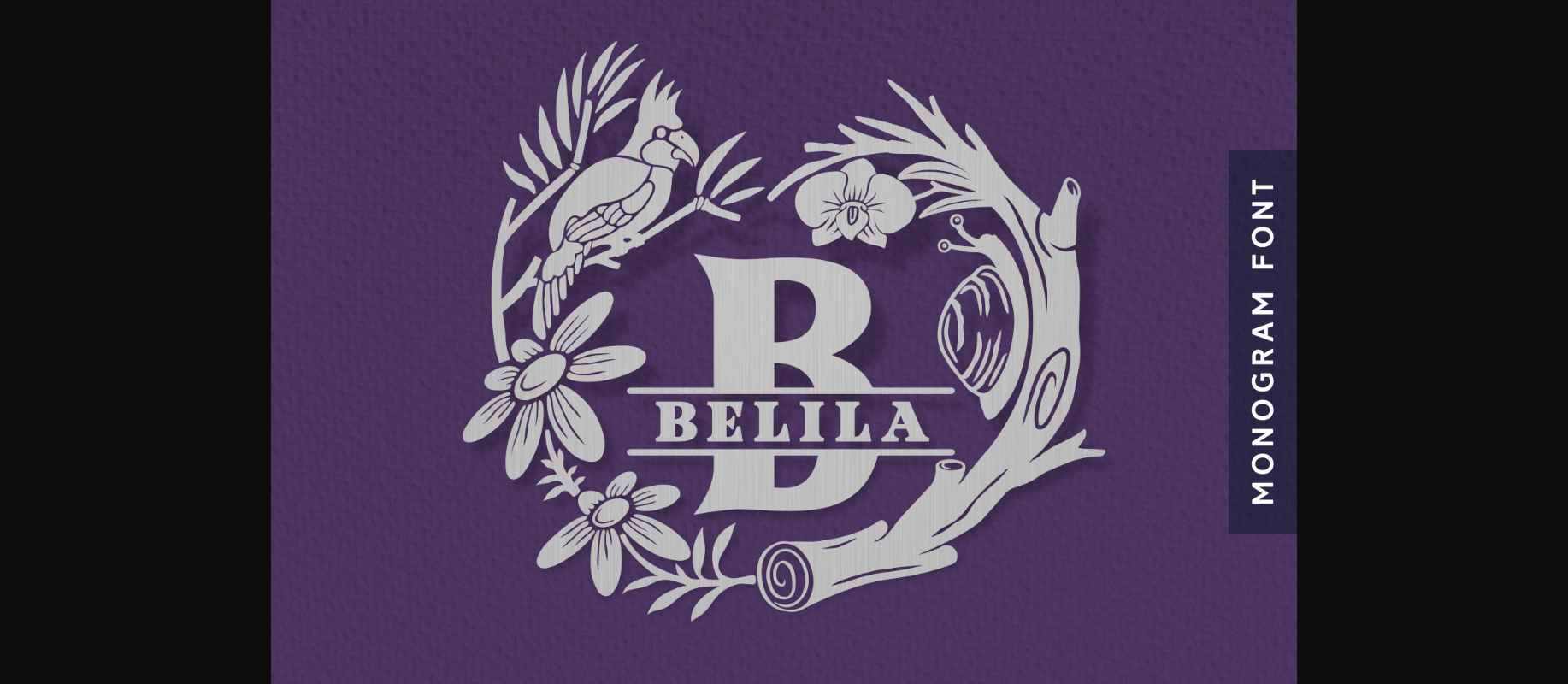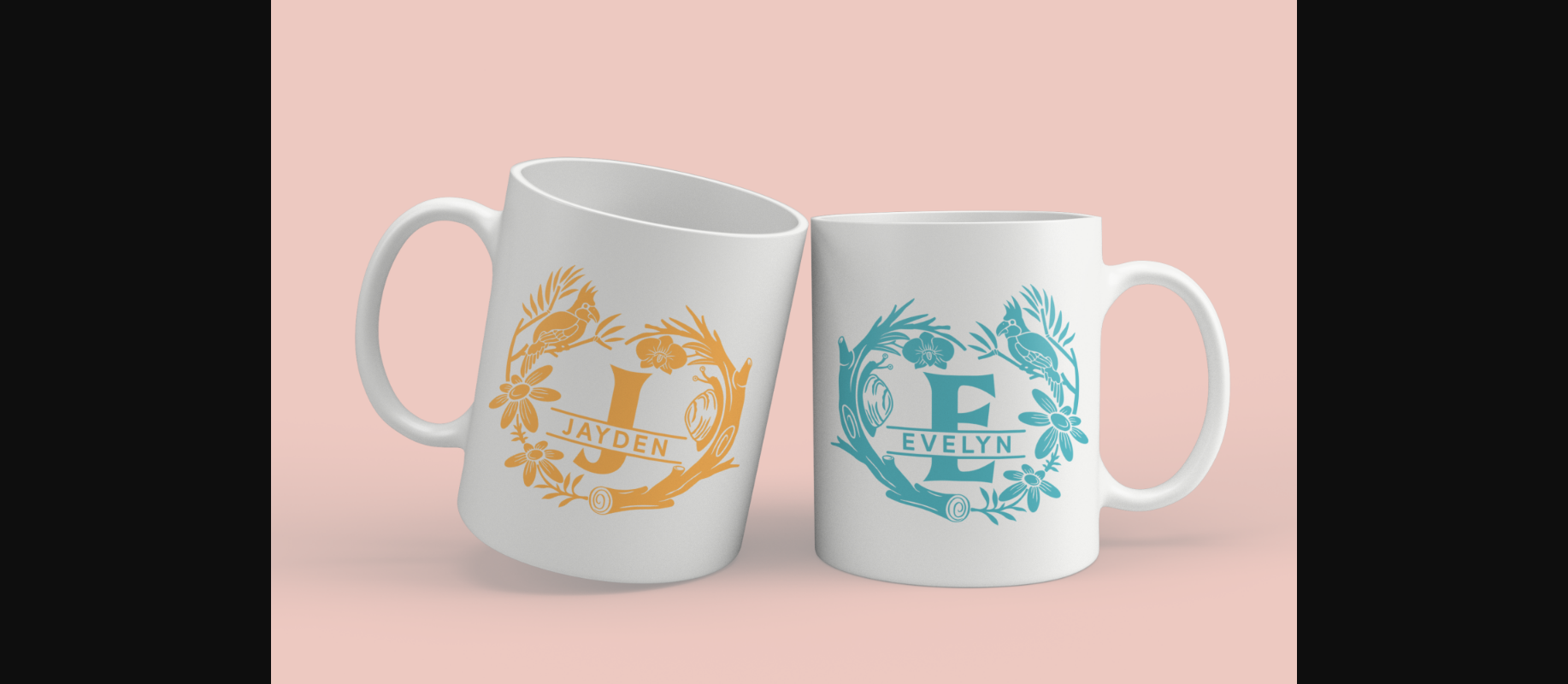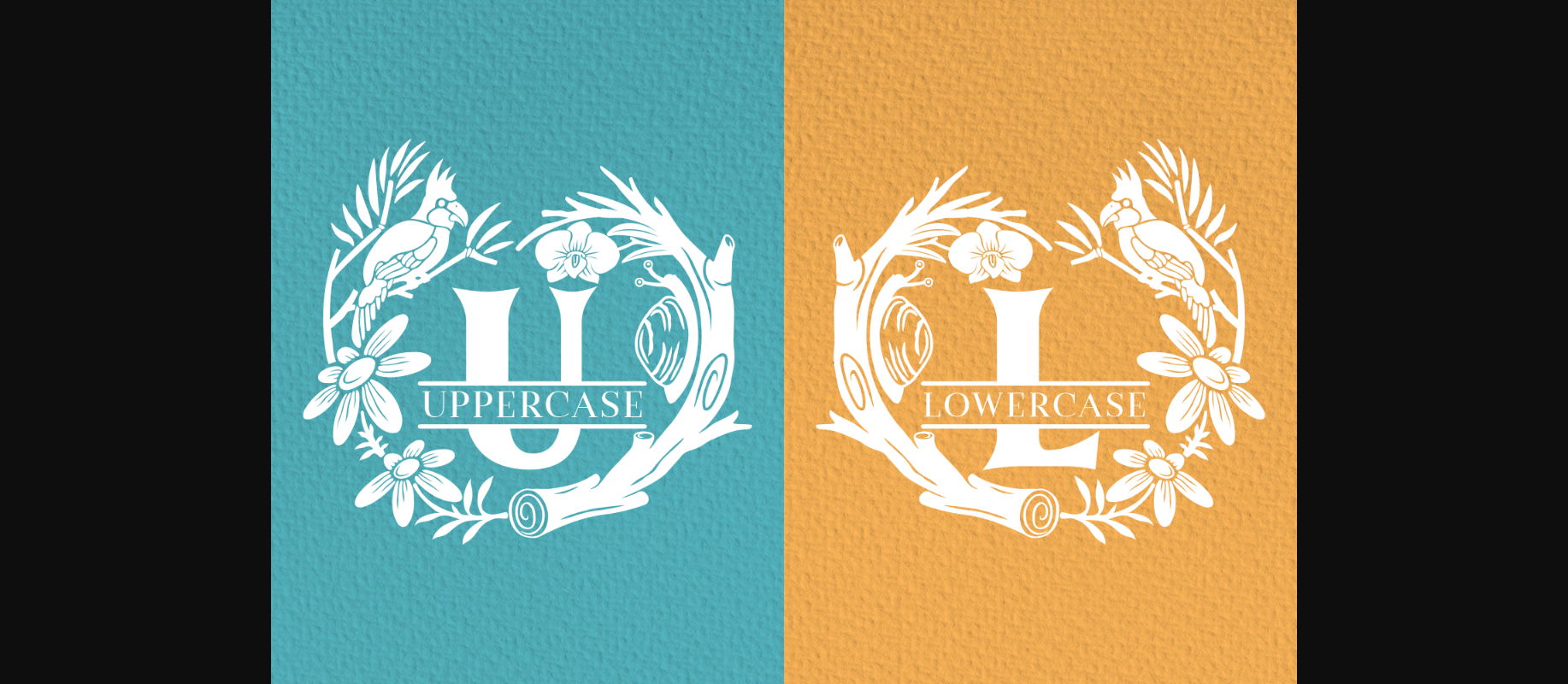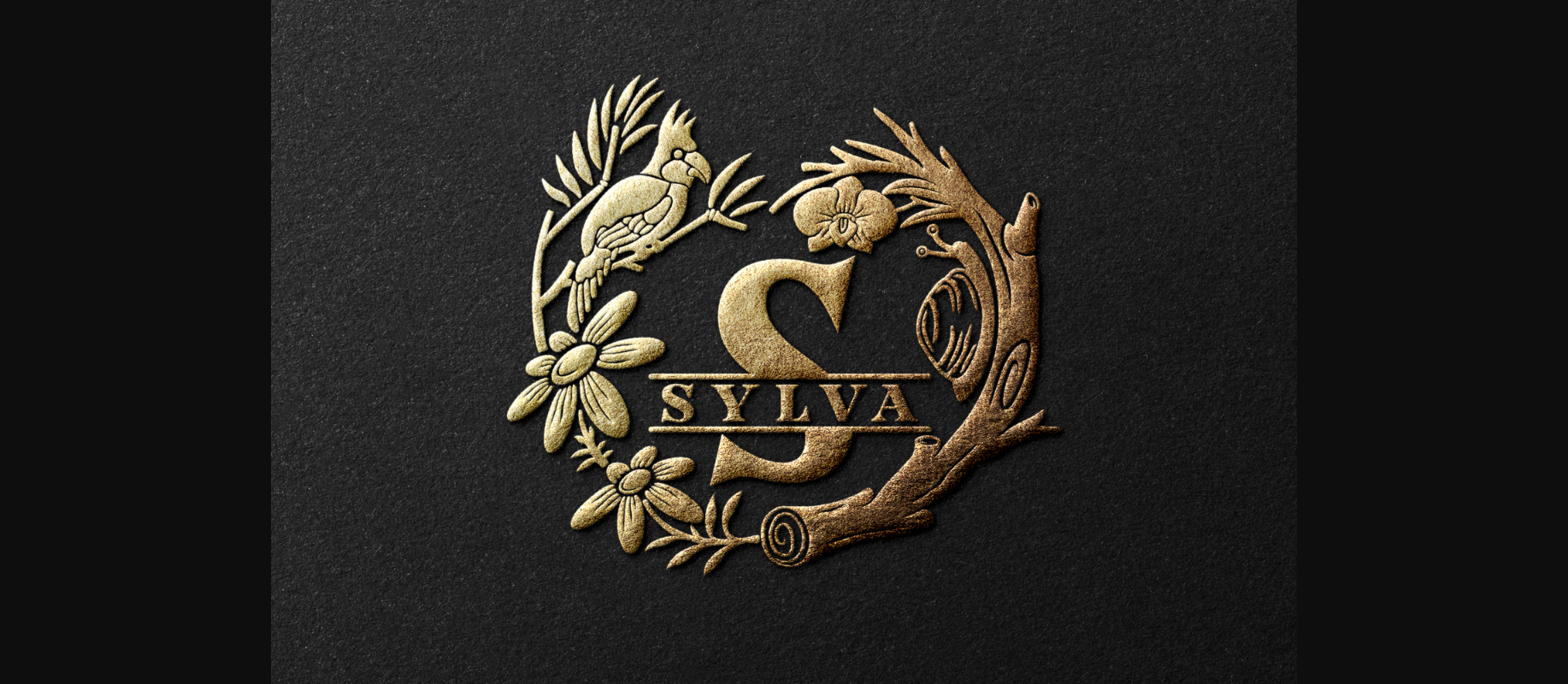
About Belila Font
Belila is a stunning decorative font that can elevate the look of any crafty project! Add it to name tags, product packaging, labels, apparel designs, and more!